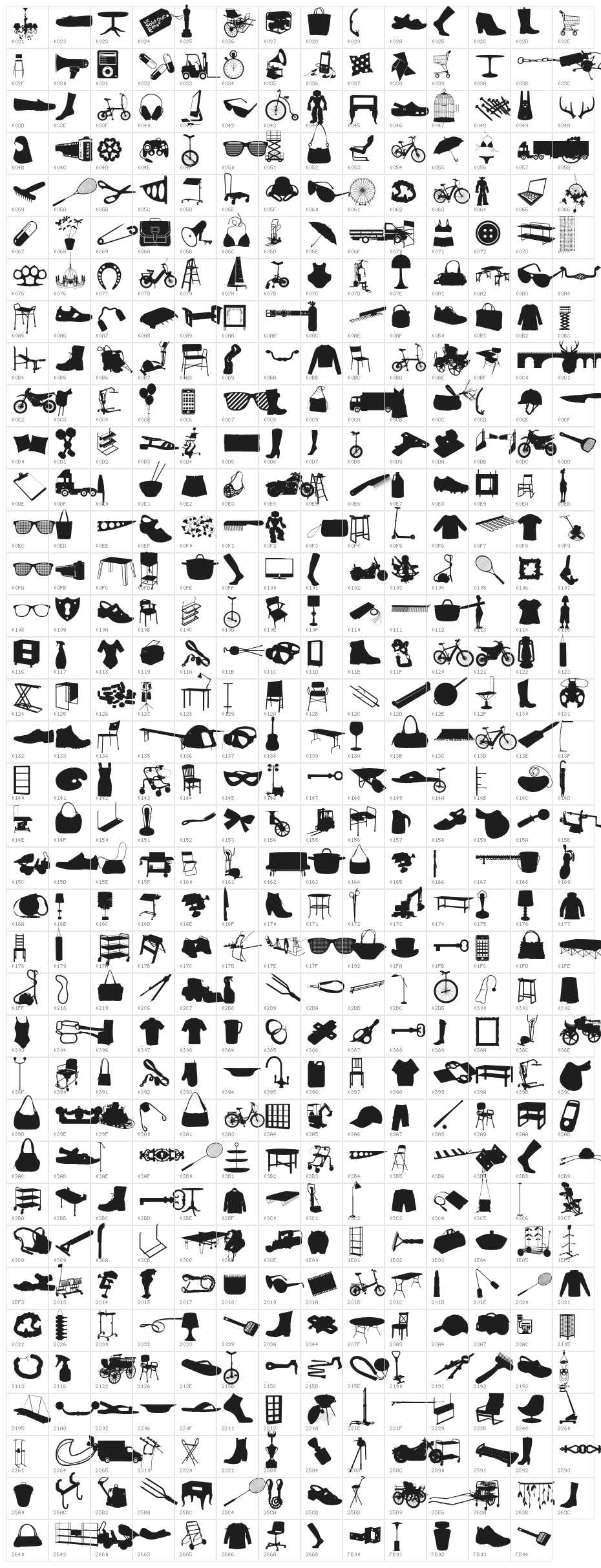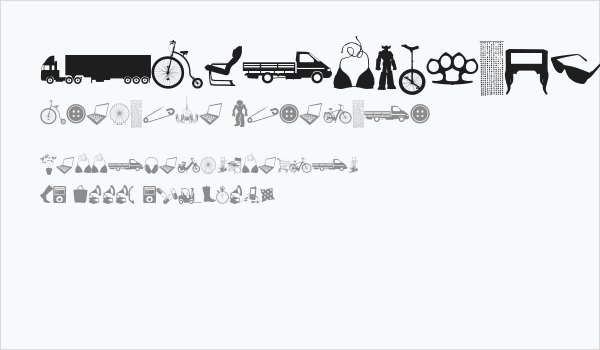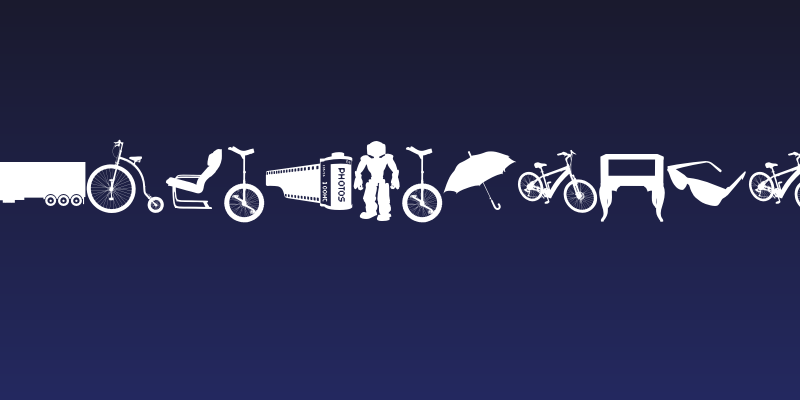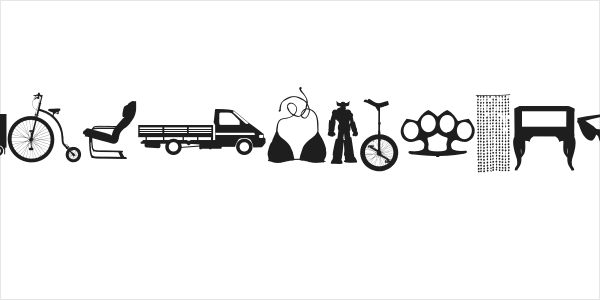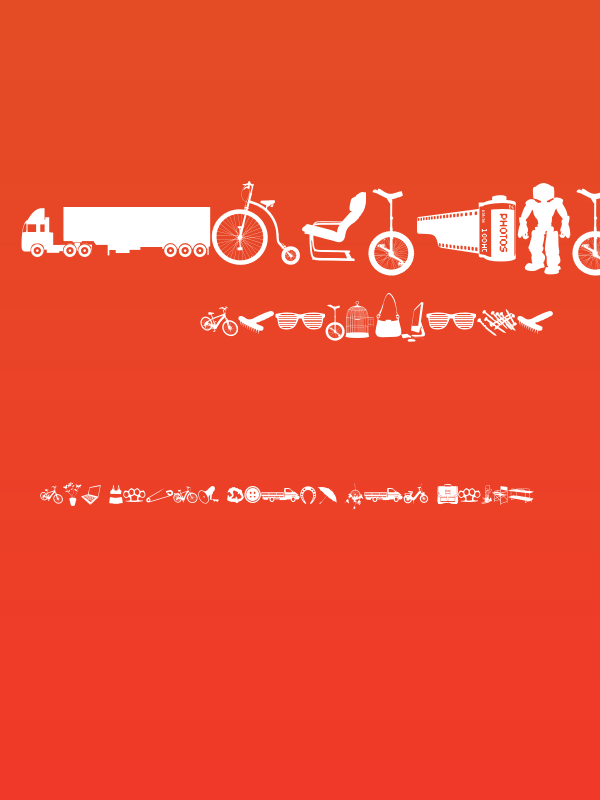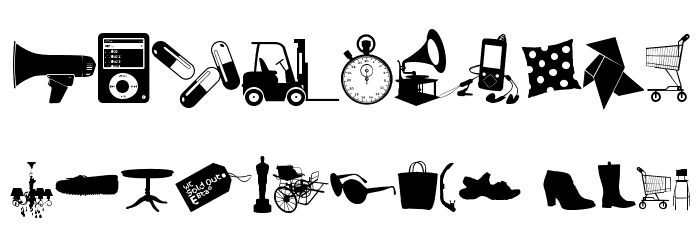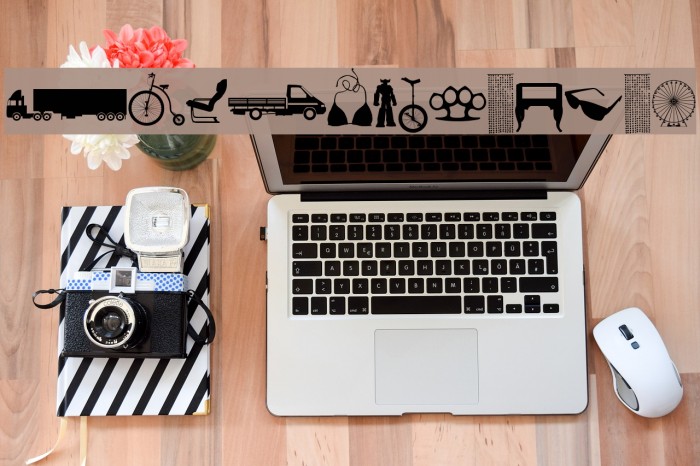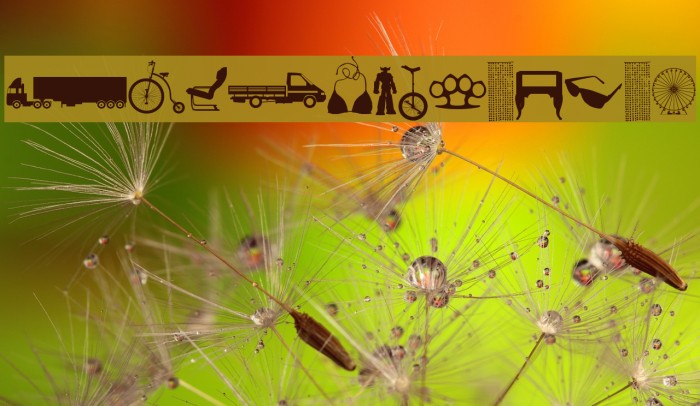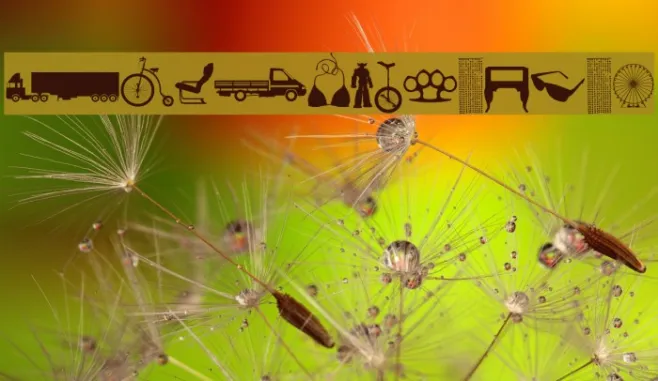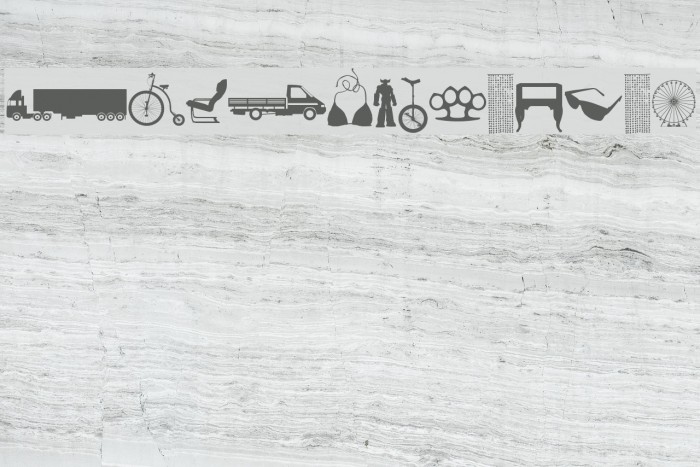
WCSoldOutEBta Font
WCSoldOutEBta Description
A decorative dingbat font composed entirely of detailed black-and-white silhouette icons representing various objects, vehicles, accessories, and miscellaneous items. Each character is replaced by a unique pictogram, making it suitable for visual communication rather than textual content.
| Use Case | Icons, visual communication, graphic embellishments |
| Proposed Projects | Infographics, educational materials, icon sets, playful posters, visual aids, scrapbooking, and creative design projects. |